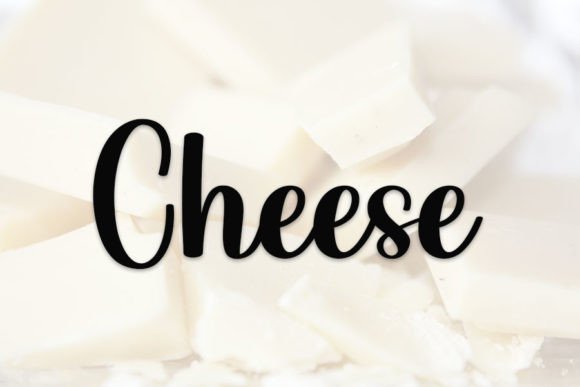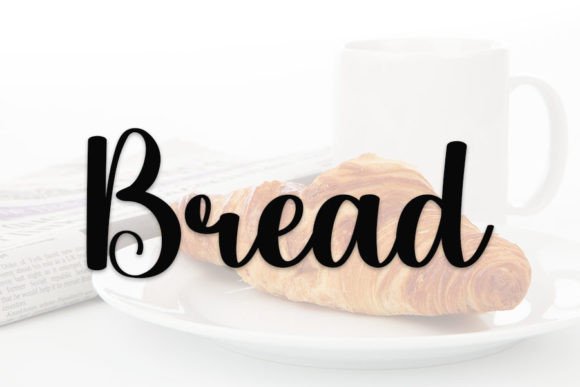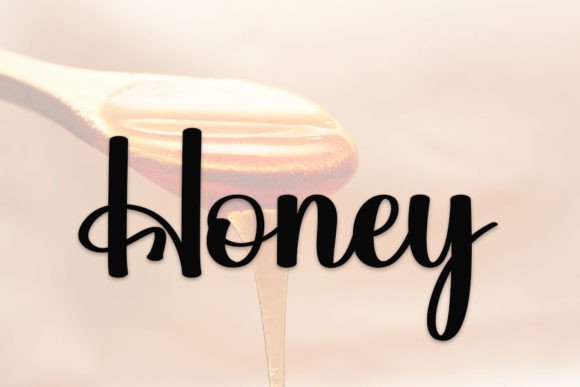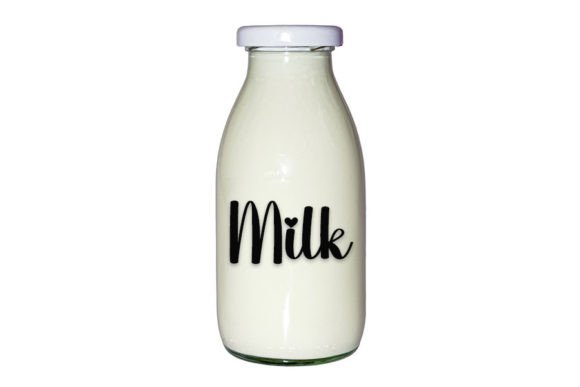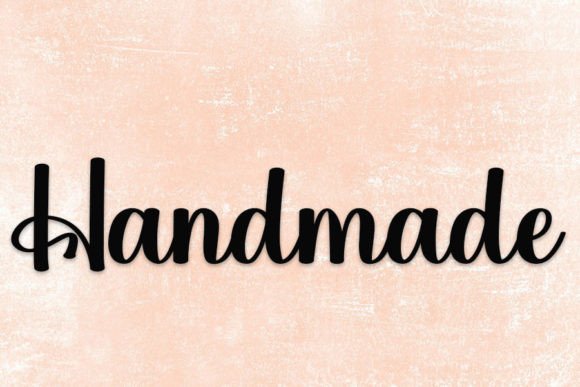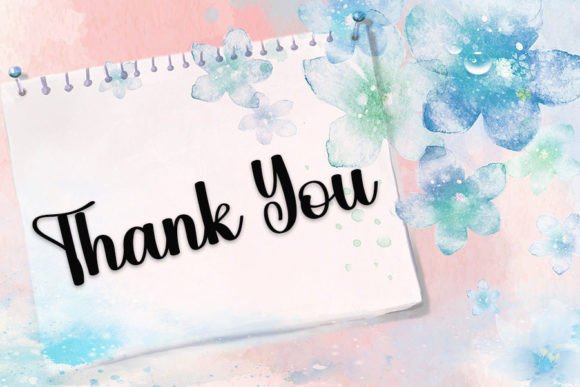
The Delightful Delicious Font: Elevate Your Designs with Elegance
Ah, the elusive perfect font. You know, that one treasure that makes your design shine like a superstar ✨. I recall working on a project, pouring my heart and soul into it, but something was just off. The design felt incomplete, and I couldn’t quite put my finger on what was missing. And then it hit me – the font. It was like the puzzle piece that finally clicked into place. That’s when I fell in love with the Delicious font, a neat and beautiful handwritten font that adds an elegant touch to any project.
A Personal Review: What I Love and What to Watch Out For
- ✨ Incredibly distinct and timeless style
- ✅ Elegant touch perfect for a variety of projects
- 💫 Highly legible, even at smaller font sizes
- 🎨 Versatile and works well with different design elements
While Delicious is an amazing font, there are a few things to keep in mind 🤔:
- ⚠️ Some characters may not work well in all contexts, especially when used at very small sizes
- ⚠️ Limited availability of certain OpenType features
The Story Behind Delicious
The Delicious font was created with the intention of crafting a beautiful, elegant handwritten font that would add a touch of sophistication to any design. The designer aimed to create a timeless piece that would stand the test of design trends. And, honestly, I think they succeeded!
Q: Is Delicious suitable for body text?
A: While Delicious is highly legible, it’s best suited for headings and titles due to its elegant, cursive nature.
Q: Does Delicious support OpenType features?
A: Yes, Delicious supports some OpenType features, including glyphs and stylistic alternates. However, the availability of these features may vary depending on the platform and software you’re using.